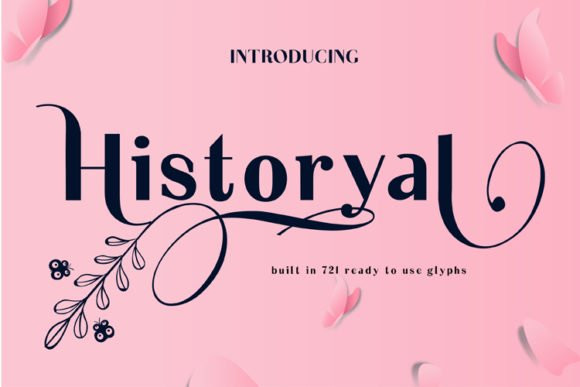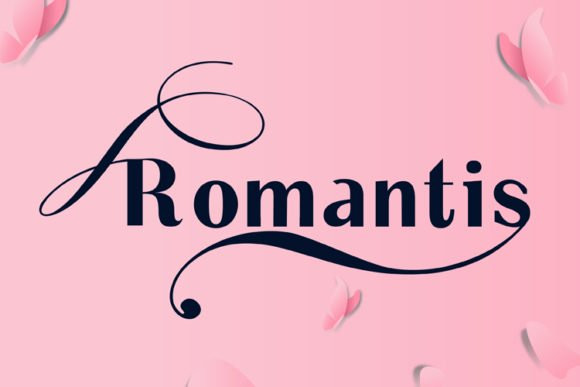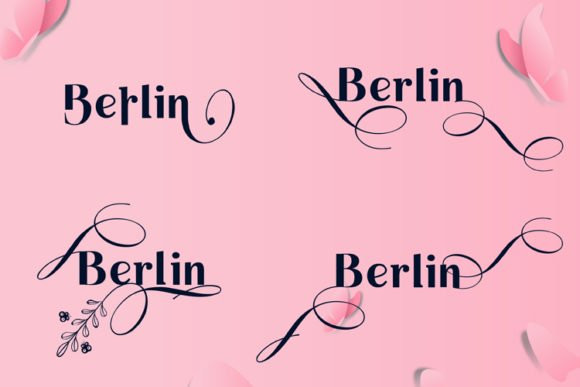
Historyal Font
Historyal is a serif font that combines a classic font style with a touch of minimalism. It features stunning ligatures and 700 alternates, allowing you to create fantastic logos, posters, covers, t-shirts, business cards, wedding cards and much more!